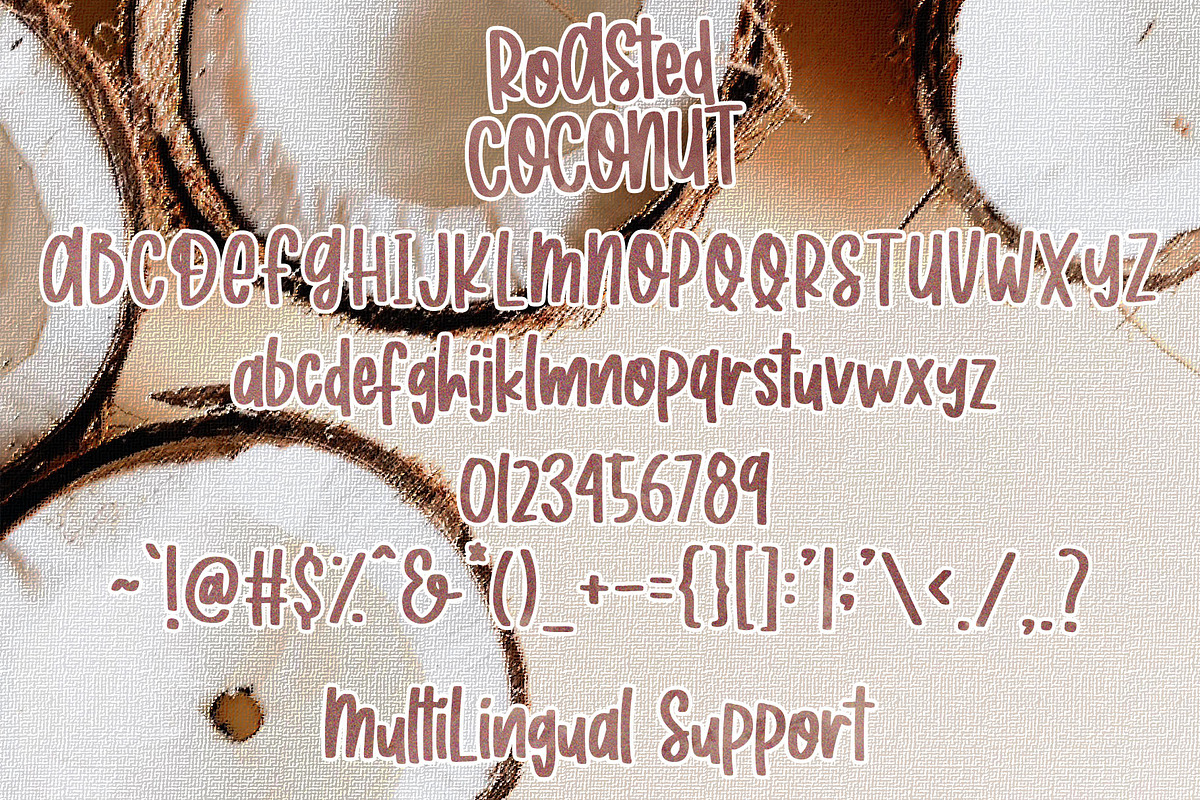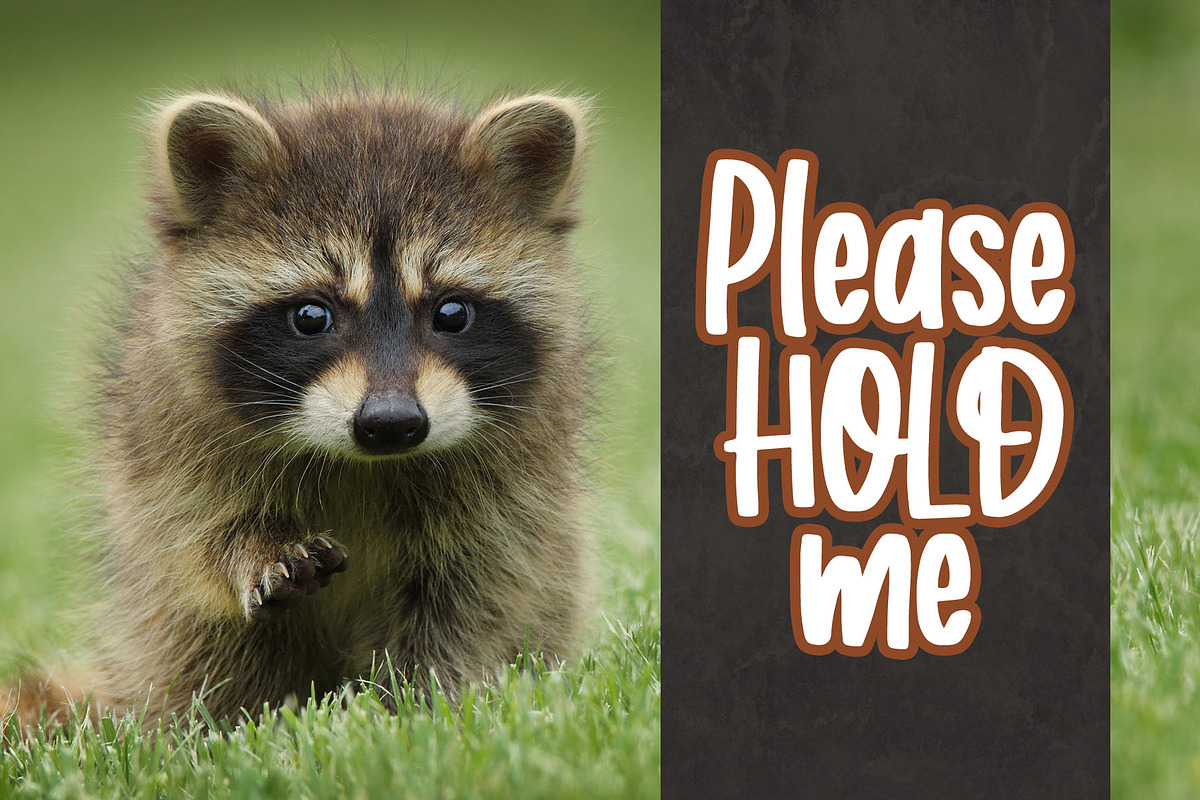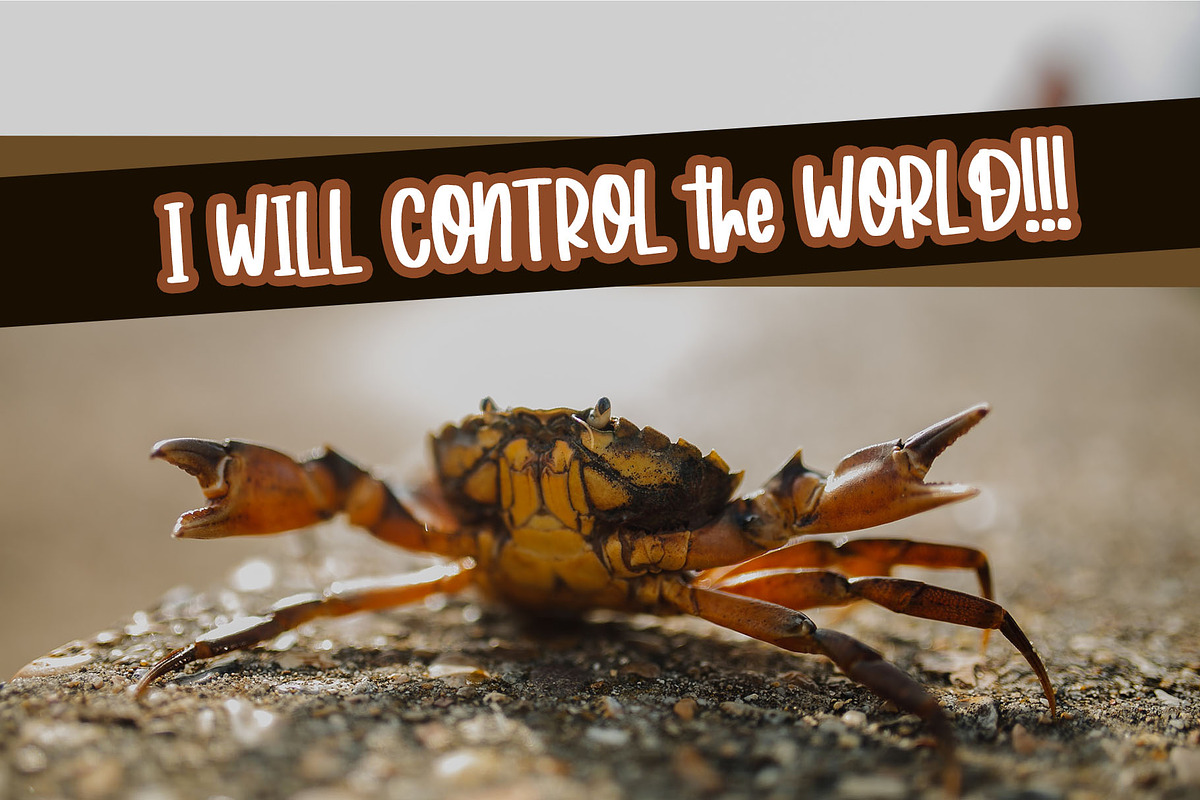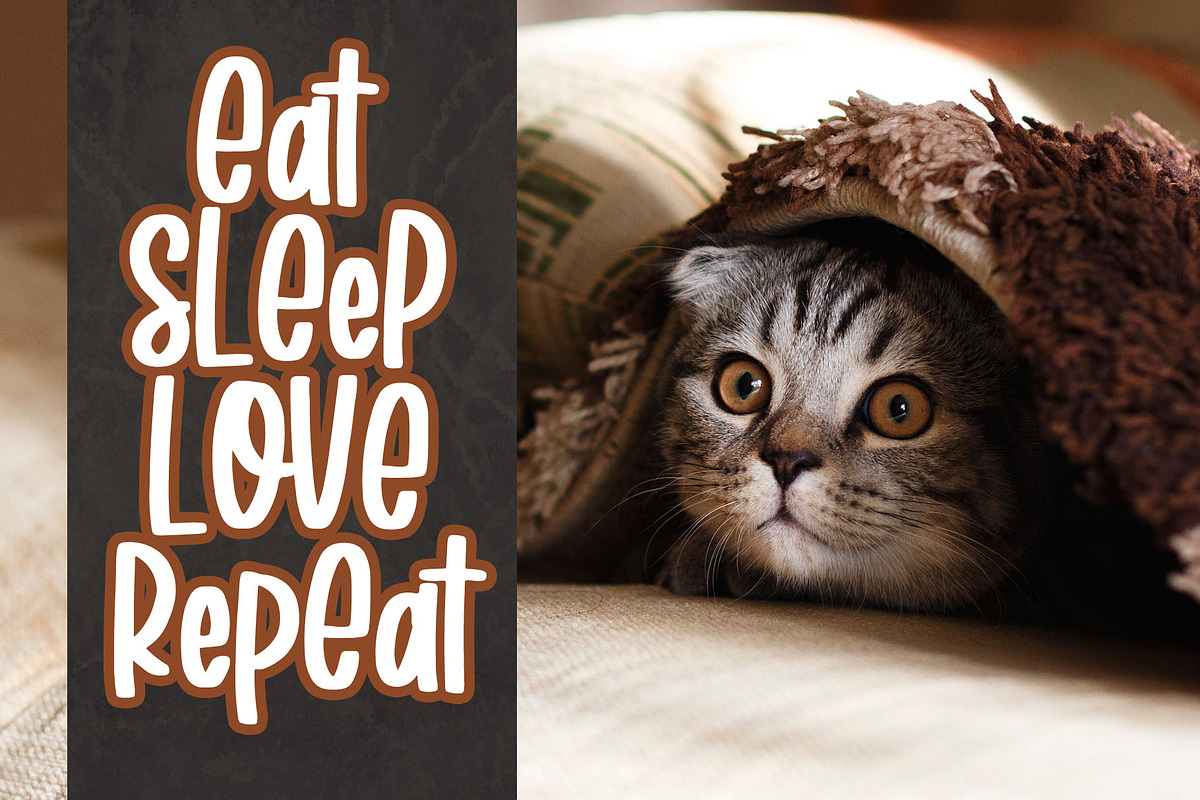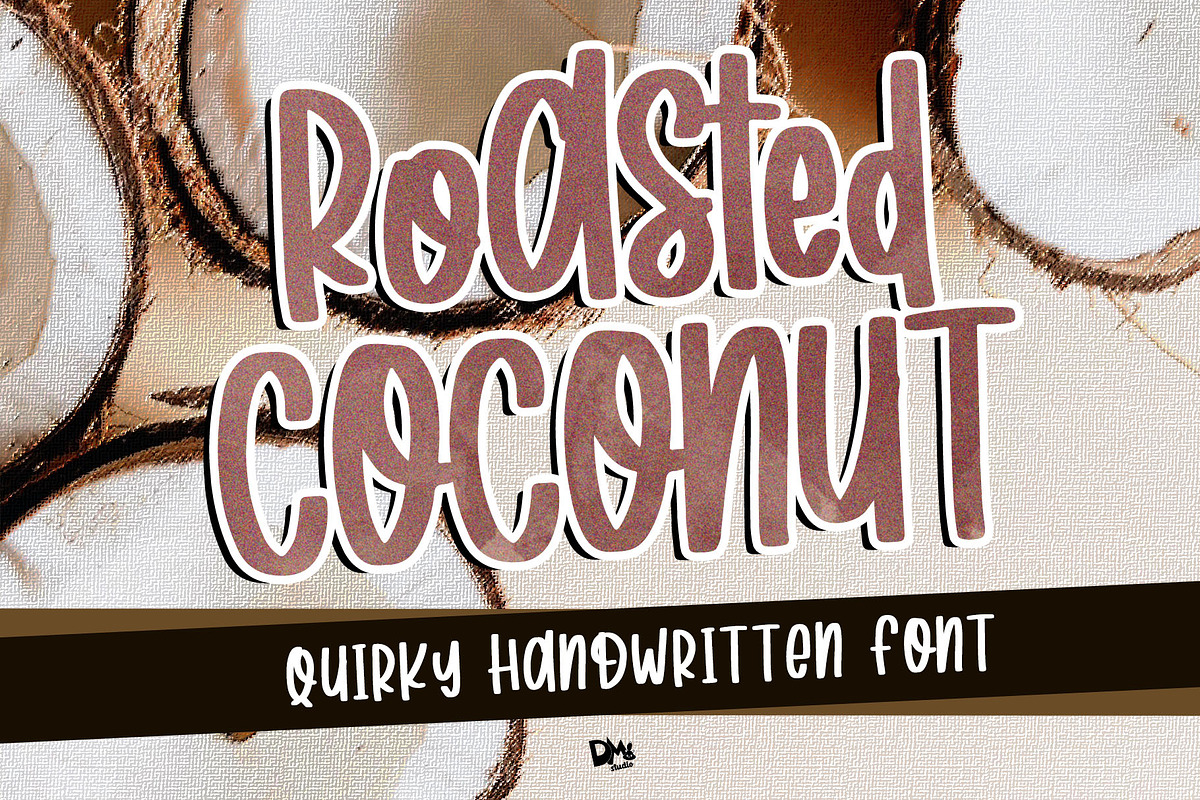
Roasted Coconut - Handwritten Font
Make your day with this friendly and quirky handwritten font! Great for your crafting design, wall quotes, social media post, business needs and much more.
- Numerics
Roasted Coconut - Handwritten Font by Dm Studio fits naturally into Branding, posters, packaging, typography.